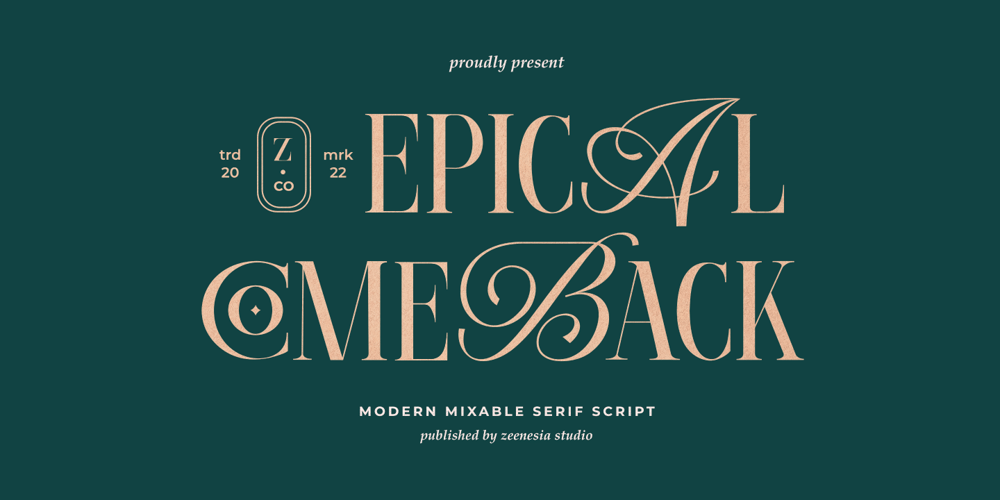
Epical Comeback
Epical Comeback font
Epical Comeback Font Family was designed by Doni Purwoko and published by Zeenesia Studio. Epical Comeback contains 1 styles and family package options. Introducing Epical Comeback is a modern display font with serif with script style. It’s modern and classic font with a unique and deference look . Perfect if you need a dose of fun in your project. Perfect for editorial projects, Logo design, web font, clothing branding, product packaging, magazine headers, or simply as a stylish text overlay to any background image.